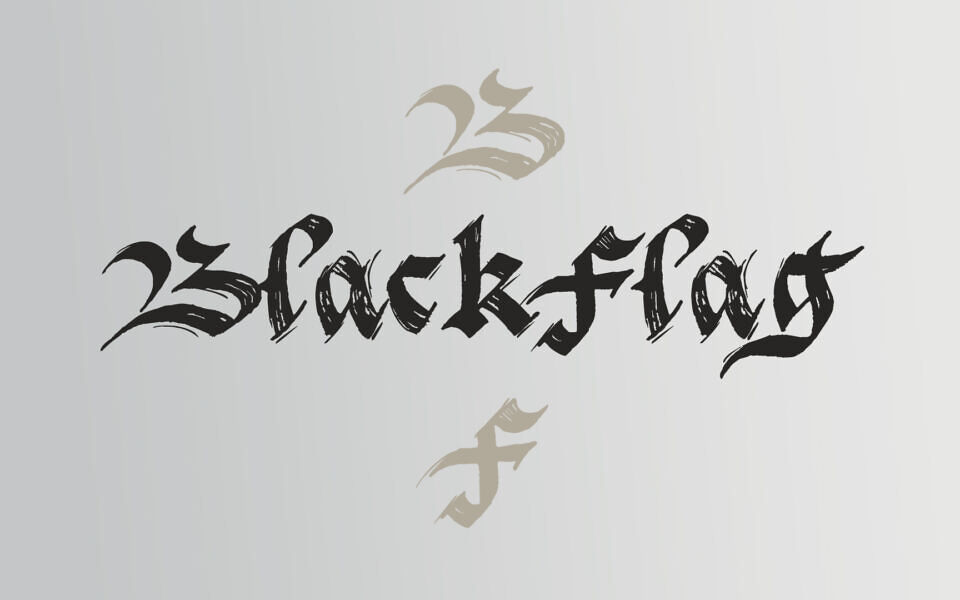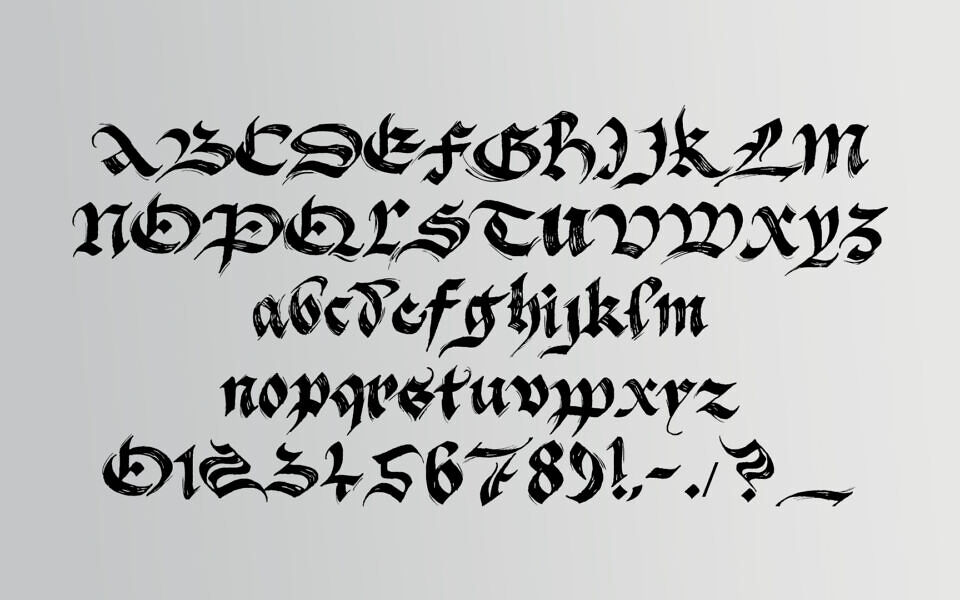
BlackFlag Font
BlackFlag is a striking gothic font inspired by medieval blackletter styles, featuring sharp edges, dramatic strokes, and a bold, expressive character. Designed by Imagex, it delivers a raw, handcrafted feel that stands out in titles, logos, and creative projects.
Its distinctive lettering adds a dark, historical atmosphere while maintaining a unique, artistic identity compared to typical blackletter fonts. Ideal for designs that demand intensity, attitude, and a vintage medieval touch.